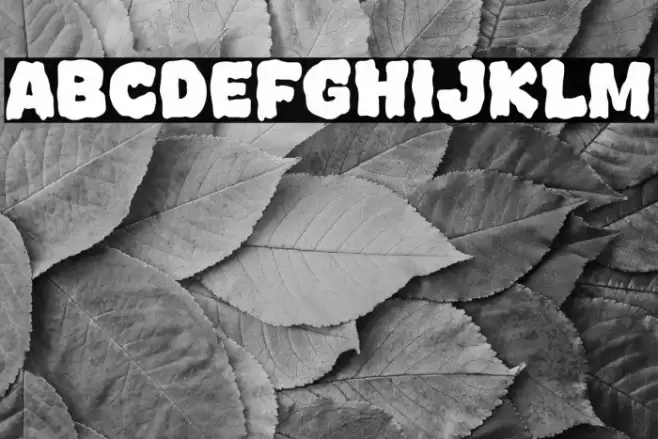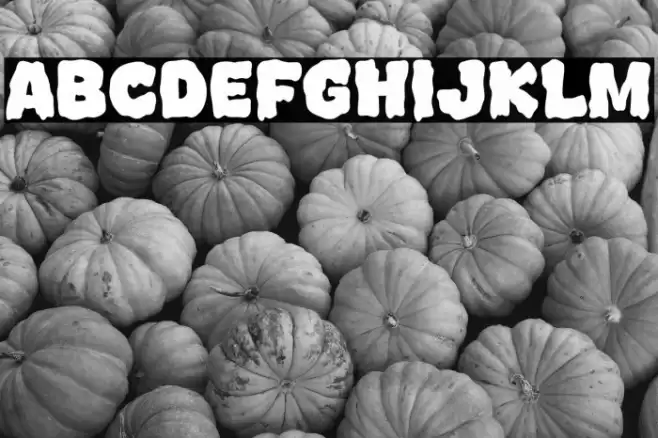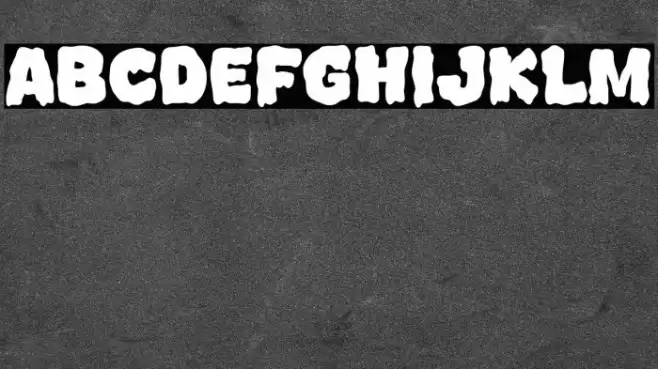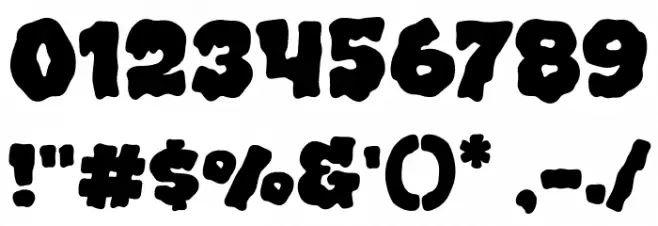
Spooky Theme Font
Spooky Theme Description
A bold, irregular display typeface with blobby, uneven edges that evoke a spooky, eerie, or gooey effect. The characters are thick and rounded, with a playful yet unsettling appearance, suitable for Halloween or horror themes.
Bold, blobby, and spooky display font with irregular edges from Uncategorized fonts.
- Font: Spooky Theme
- Proposed Projects: Halloween posters, haunted house flyers, party invitations, horror-themed branding, children's spooky books.
- Overall Style: Decorative, Spooky, Playful
- Use Case: Headlines, Posters, Logos, Event Promotions
Spooky Theme UPPERCASE
Spooky Theme LOWERCASE
Spooky Theme OTHER CHARS